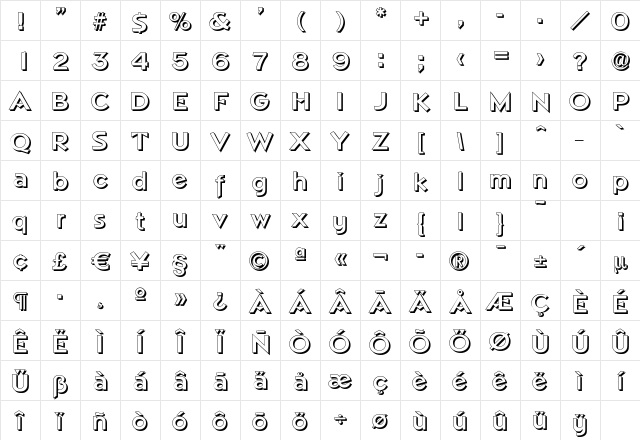
NapoliDropShadow Bold
Design Context for NapoliDropShadow
NapoliDropShadow is built around its visual character rather than neutral utility - its distinctive forms are designed to make an impression at display sizes. Its bold stroke weight gives it real presence on the page.
Font Pairing: Pair with a clean neutral sans-serif for body copy to let NapoliDropShadow's character lead without overwhelming the composition.
Pro Tip: Use NapoliDropShadow exclusively at display sizes - it was designed to be seen, not read at length. Let a neutral companion handle body copy.